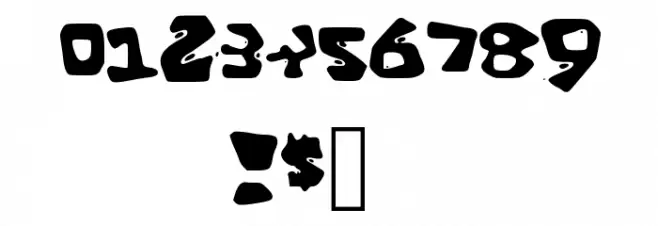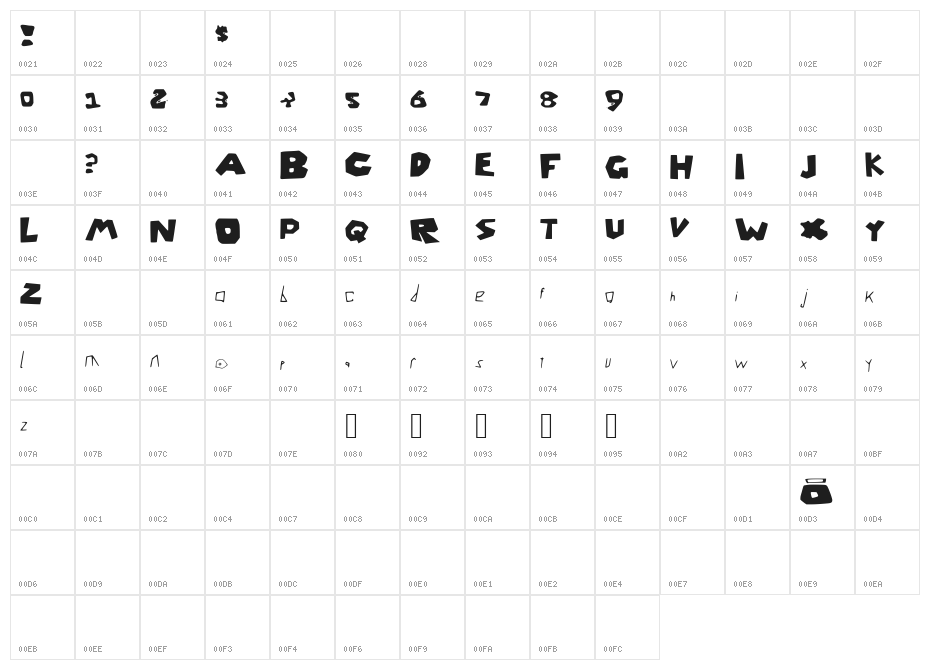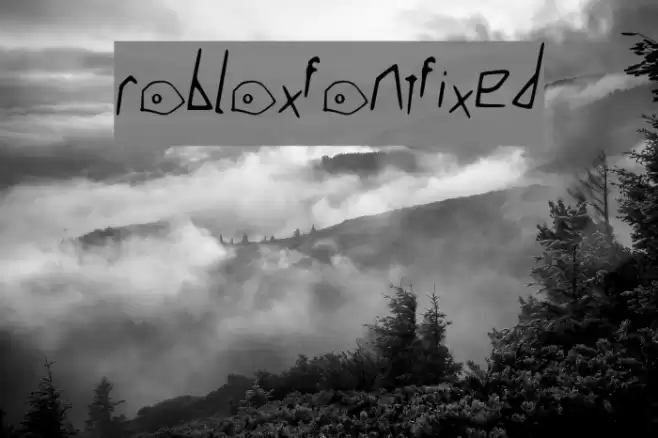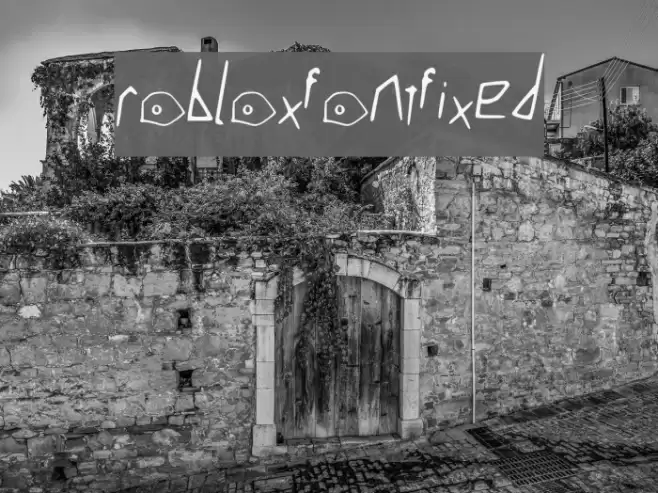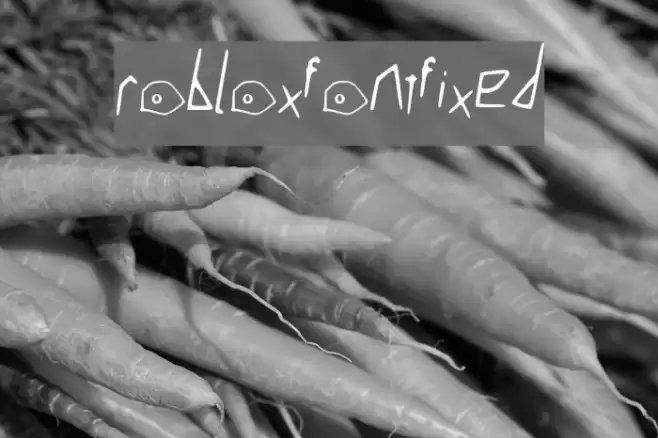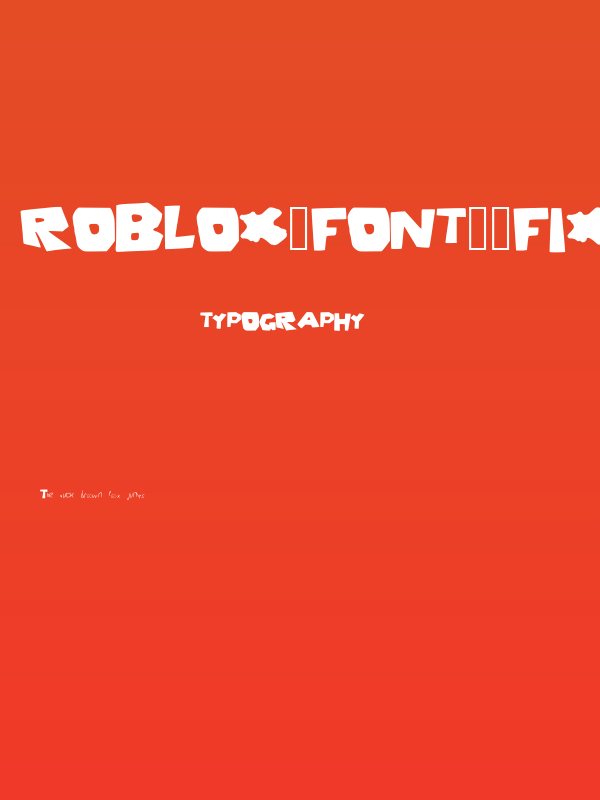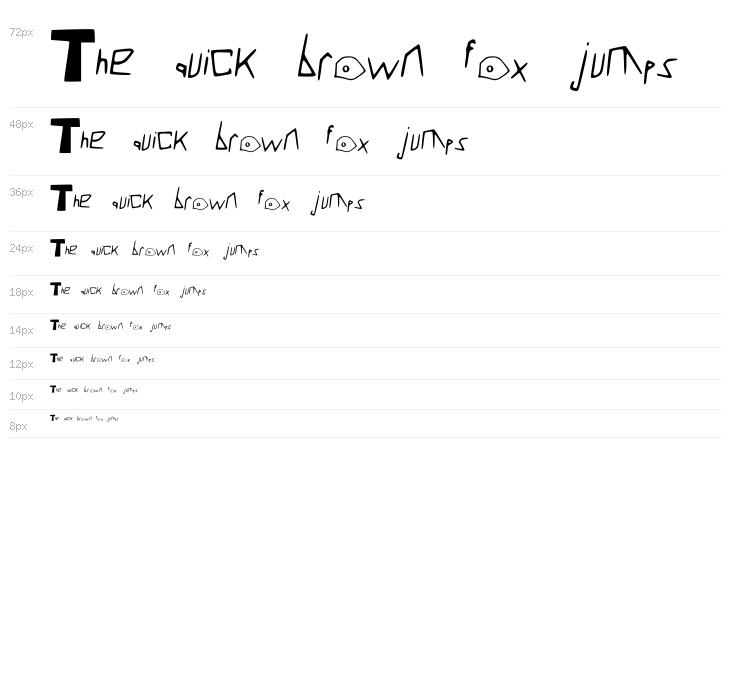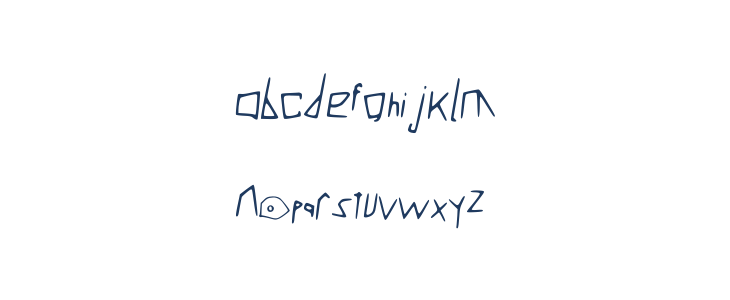
roblox_font__fixed_ Font
roblox_font__fixed_ Description
This font features a bold and playful design with a distinctly irregular and geometric style. The uppercase letters are characterized by their chunky, angular shapes, creating a sense of movement and energy. The lowercase letters contrast with a more handwritten, quirky appearance, adding a unique personality to the font. Numbers follow the bold style of the uppercase letters, maintaining the playful and dynamic feel. Special characters are creatively designed, fitting seamlessly with the overall aesthetic. This font's unique style makes it stand out, ideal for projects that require a fun and eye-catching typeface.
| Overall Style | Playful, Creative |
| Proposed Projects | Ideal for children's book covers, playful branding, video game graphics, and creative posters. |